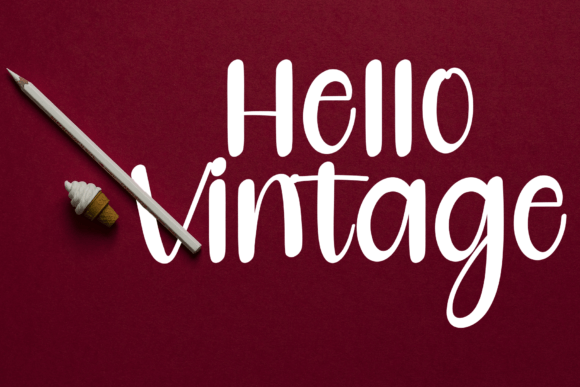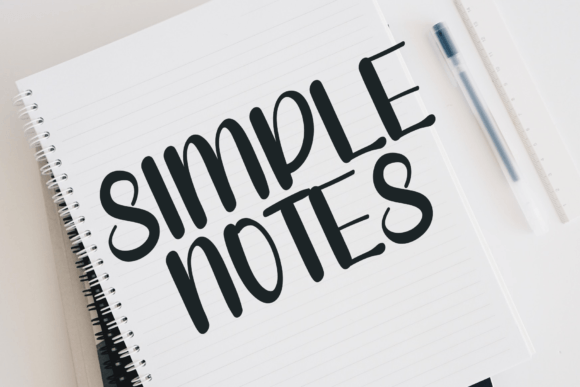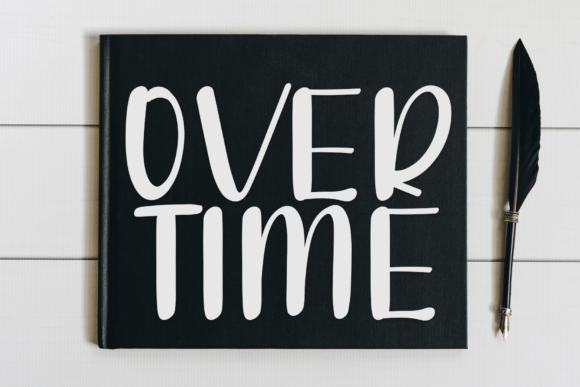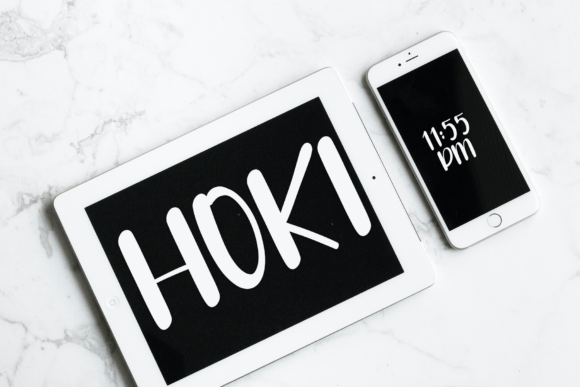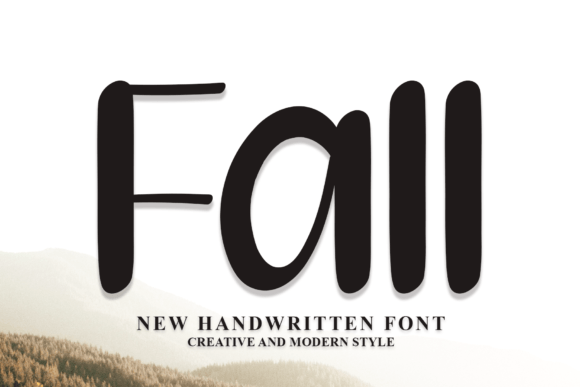
Introducing Fall Font: Elevate Your Designs with Timeless Elegance
Are you on the hunt for a font that exudes sophistication, elegance, and a touch of modern flair? Look no further than Fall Font, a stylish handwritten typeface that is sure to elevate your designs to new heights. Inspired by the timeless beauty of classic calligraphy, Fall Font brings a contemporary atmosphere to the table, making it the perfect addition to any creative project.
The Inspiration Behind Fall Font
Fall Font draws its inspiration from the world of classic calligraphy, where the art of beautiful handwriting meets the precision of typography. The result is a font that boasts impeccable form, balanced and varied in its design to create a truly unique visual experience. Whether you’re working on a branding project, crafting a stylish invitation, or designing a beautiful blog, Fall Font is the perfect choice to add a touch of sophistication and elegance.
What Makes Fall Font Special?
So, what sets Fall Font apart from other fonts on the market? Here are just a few features that make it a standout choice for designers and crafters:
• Balanced and Varied: The font features a balanced and varied design, with a range of glyphs and ligatures to choose from. This ensures that your text will always look elegant and refined, with no two characters looking exactly the same.
• Contemporary Atmosphere: Despite its classic inspiration, Fall Font has a distinctly modern feel that makes it perfect for contemporary designs. Whether you’re working on a cutting-edge branding project or a stylish website, this font will help you create a visual experience that feels fresh and current.
Fall Font is a versatile typeface that is perfect for a wide range of creative projects. Here are just a few ideas to get you started:
• Branding and Logos: Use Fall Font to create a stylish and sophisticated brand identity that sets your business apart from the competition.
• Invitations and Stationery: Add a touch of elegance to your invitations, greeting cards, and other stationery with this beautiful handwritten font.
• Web Design: Fall Font is perfect for use on websites, blogs, and other digital platforms. Its clean and refined design ensures that your text will always be easy to read, while its stylish aesthetic adds a touch of personality to your site.
• Crafting and DIY Projects: Whether you’re creating handmade cards, scrapbooking, or working on other DIY projects, Fall Font is a great choice for adding a personal touch to your work.
Tips for Using Fall Font
To get the most out of Fall Font, here are a few tips to keep in mind:
• Experiment with Glyphs and Ligatures: Don’t be afraid to try out different glyphs and ligatures to add visual interest to your text.
• Play with Font Sizes: Fall Font looks great at a range of font sizes, from large headings to smaller body text.
• Pair it with Other Fonts: Try pairing Fall Font with other fonts to create a unique and visually appealing typography scheme.